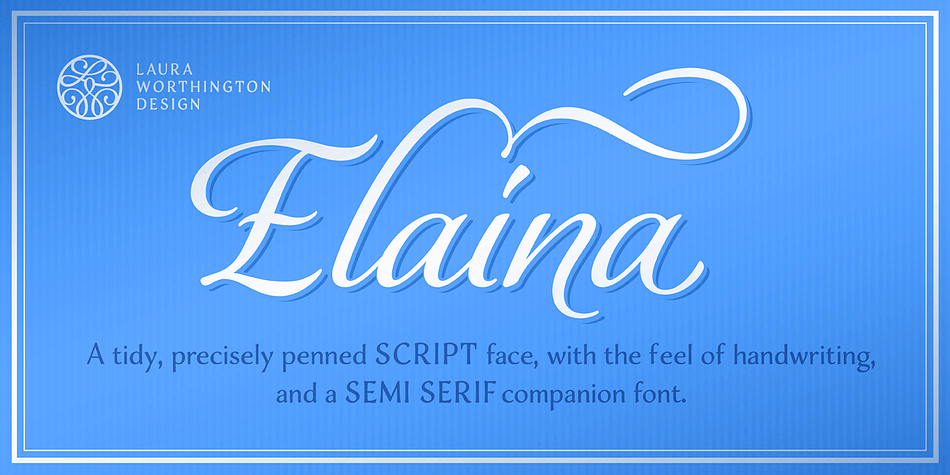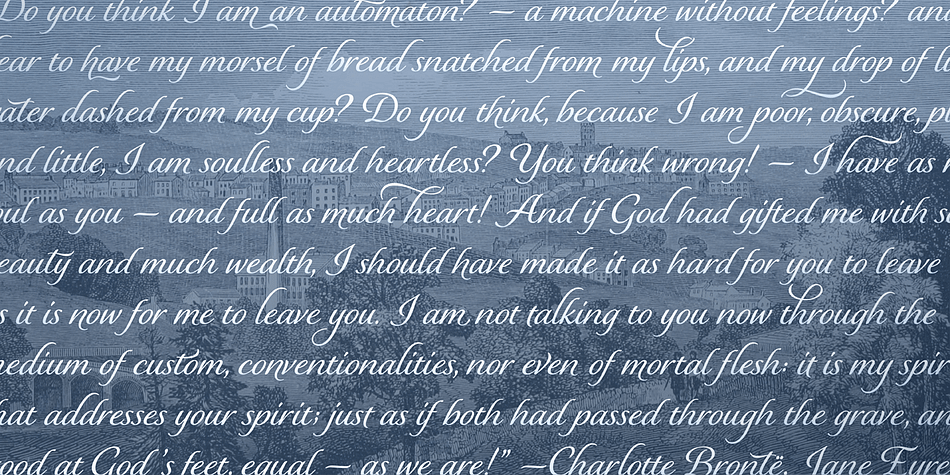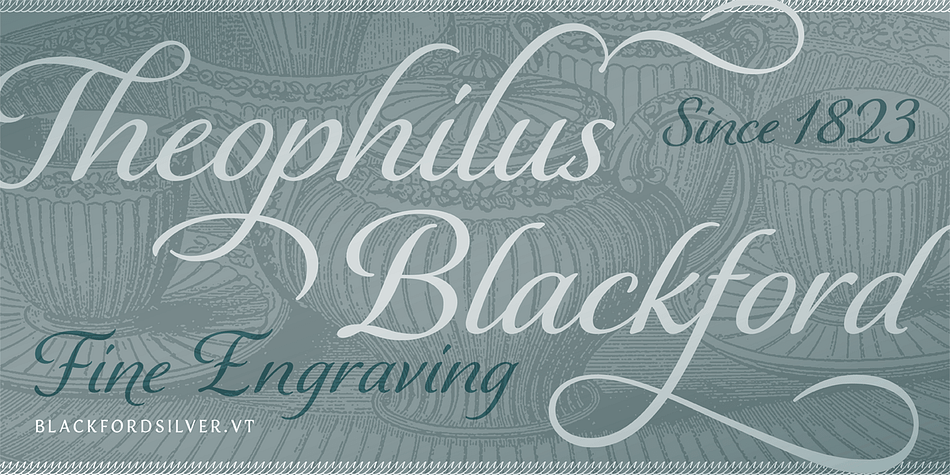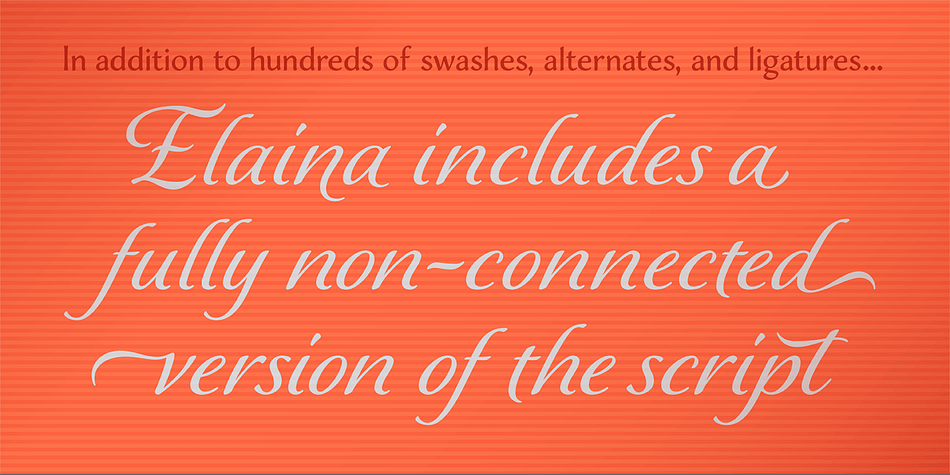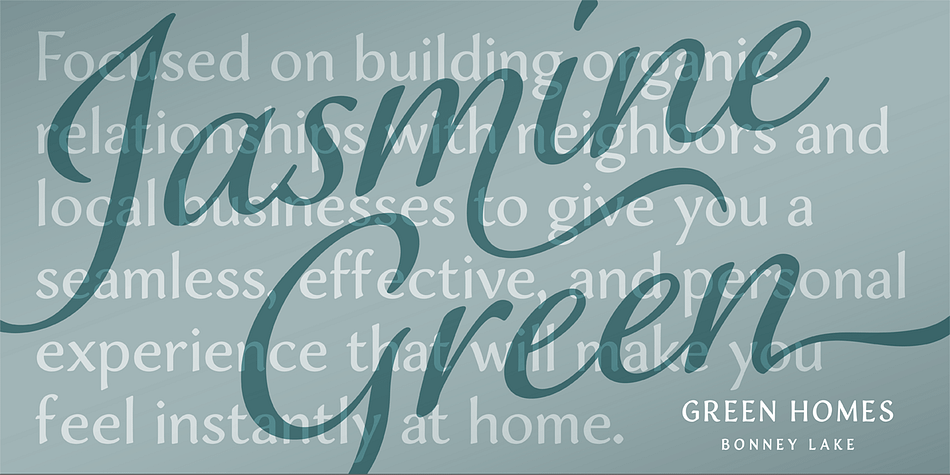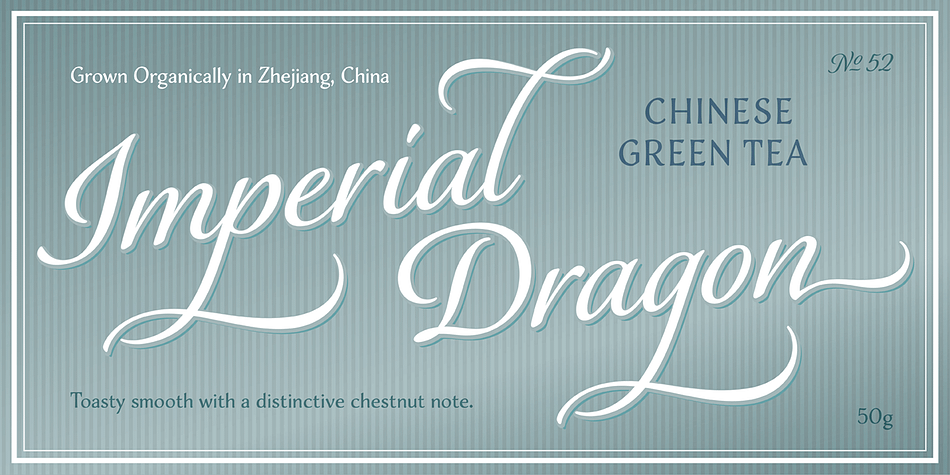
Designed by Laura Worthington, Elaina is a sans serif and script font family. This typeface has two styles and was published by Laura Worthington.
Elaina Script is a tidy, precisely penned script face — perhaps closest of all of Laura’s faces to her own handwriting. In its standard form, with its sober x-height and restrained ascenders and descenders, it’s a pleasure to read at smaller display sizes and in short blocks of text.
It is accompanied by an unconnected version of the lowercase characters, its stylistic alternates, and a companion font, Elaina Semi Serif, useful for body text and complementary contexts.
Of course, like most of Laura’s typefaces, it includes hundreds of swashes, alternates, and ligatures, for attention-getting effects at large sizes and in brand identities.